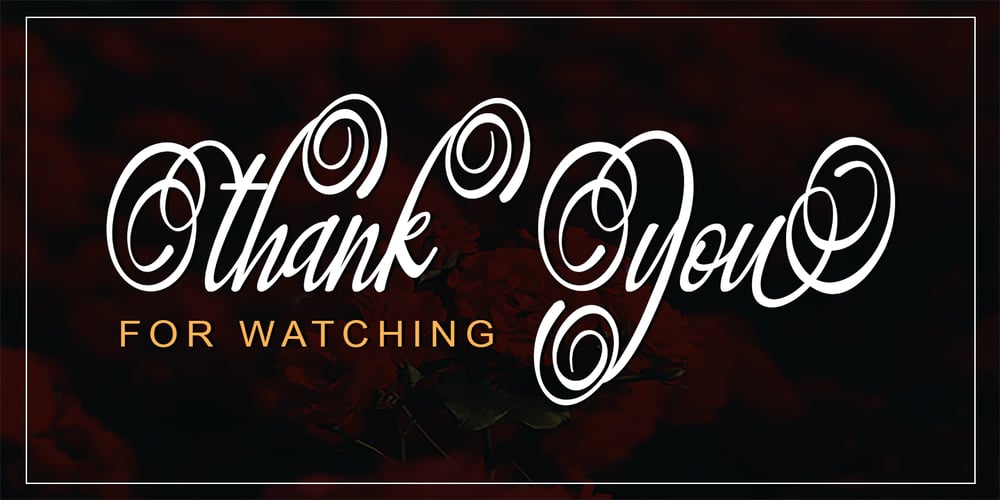
Djulia Font Family was designed by Ayah Phoen and published by Axara Creative. Djulia contains 1 styles and family package options. Djulia is a script font with clear characteristics – feminine & elegant. It is a classy typeface for many uses: greeting cards, editorial, branding, wedding invitations, etc. Djulia is ideal typeface to make an attractive message or put in some instant beauty to your design by using a bunch of its ornamental characters. What included: – Djulia OTF Thank you for your purchase!